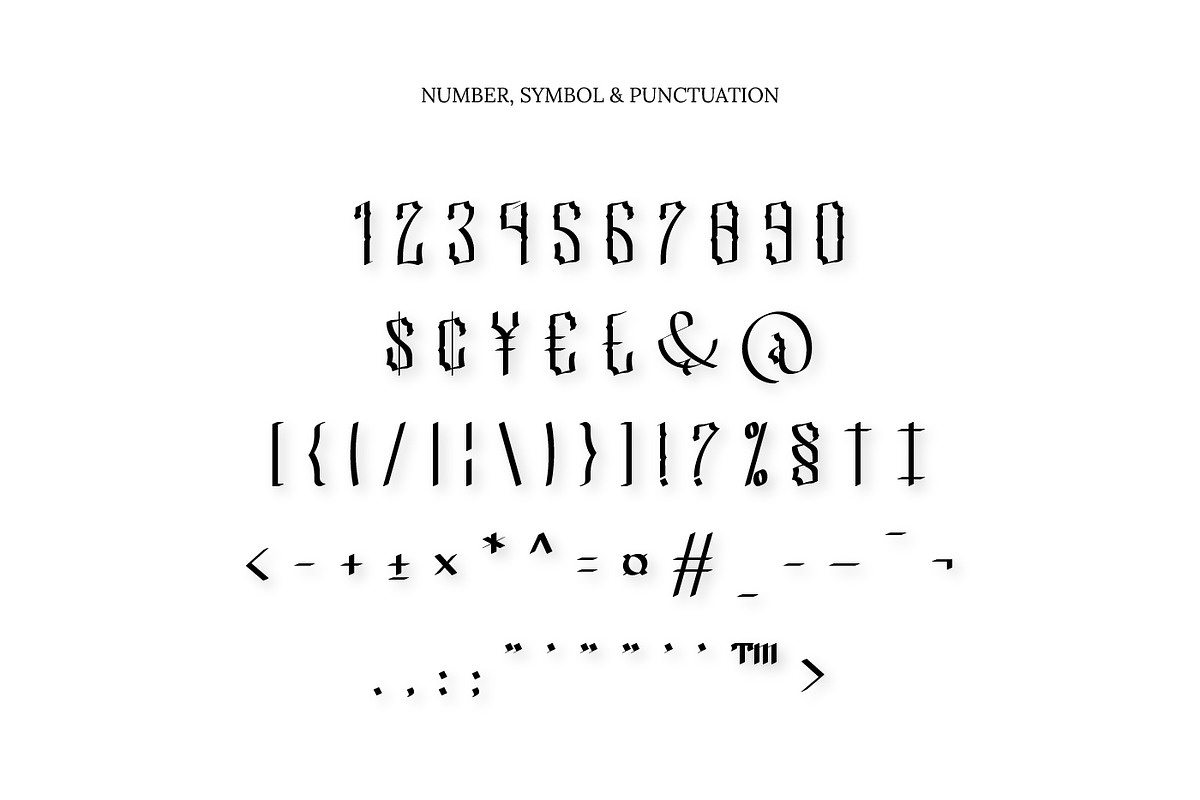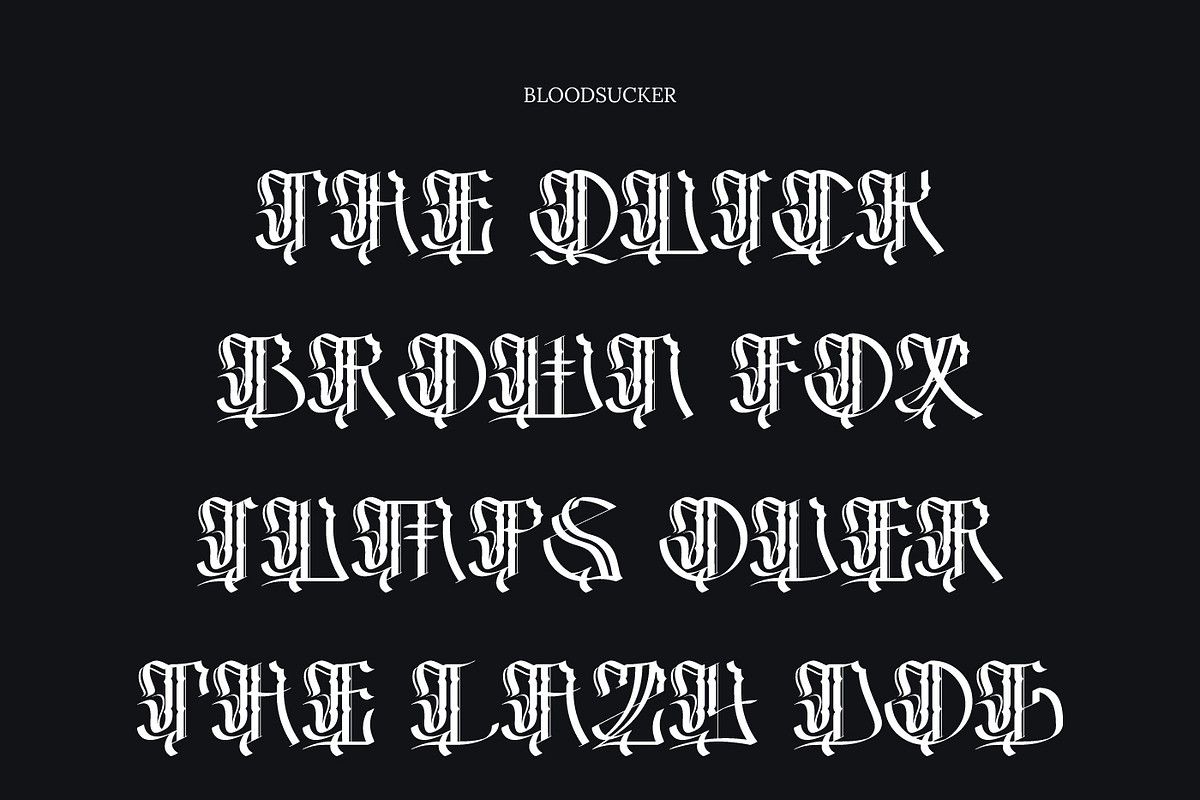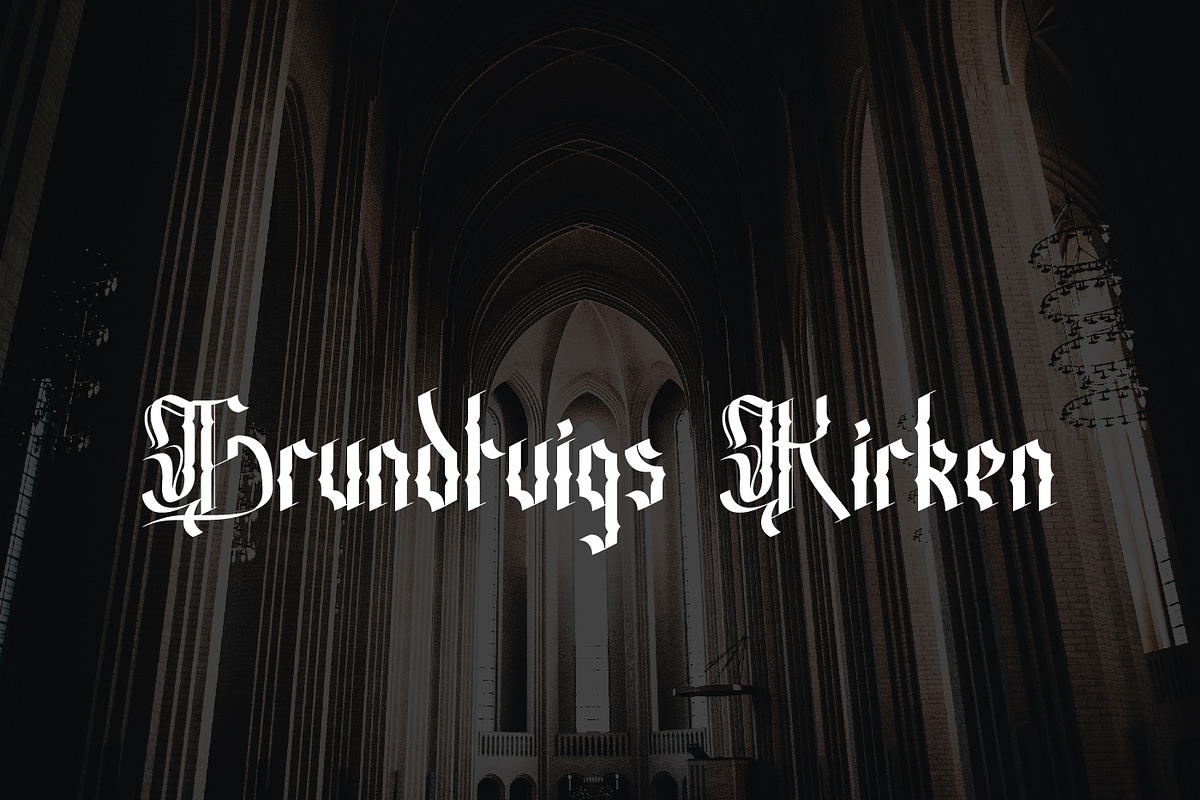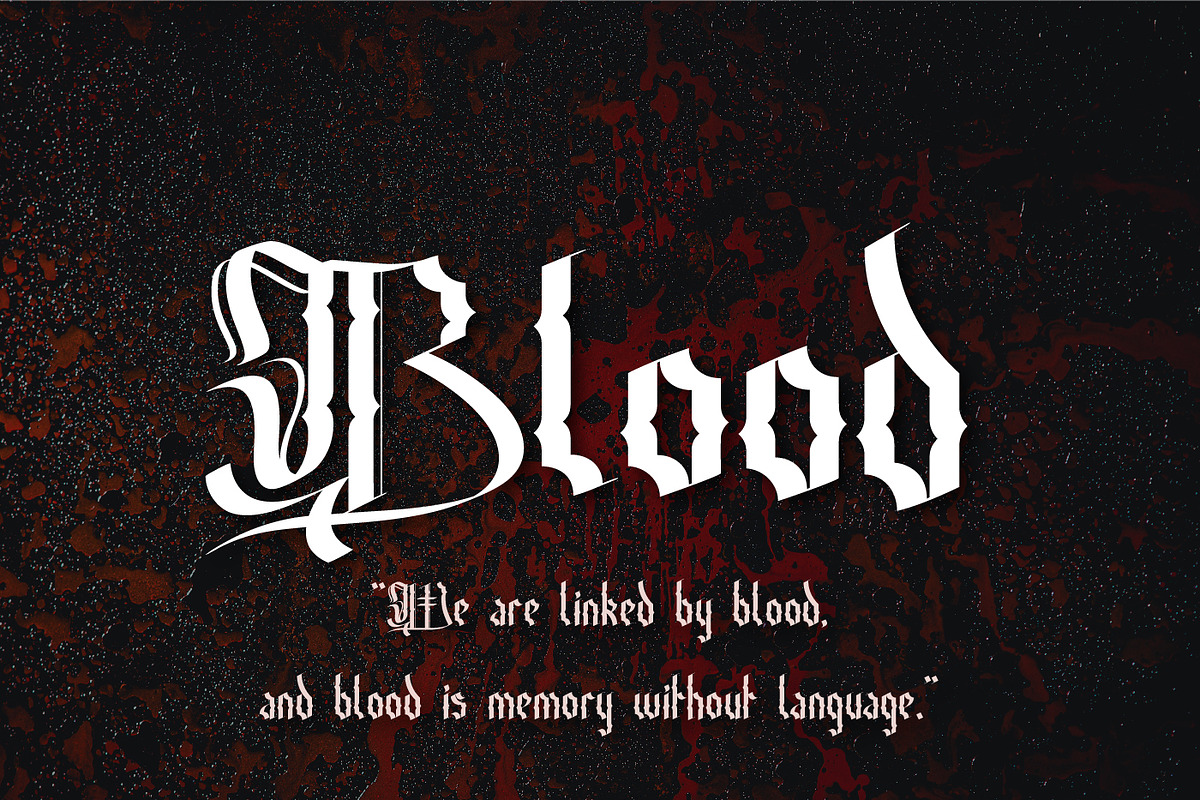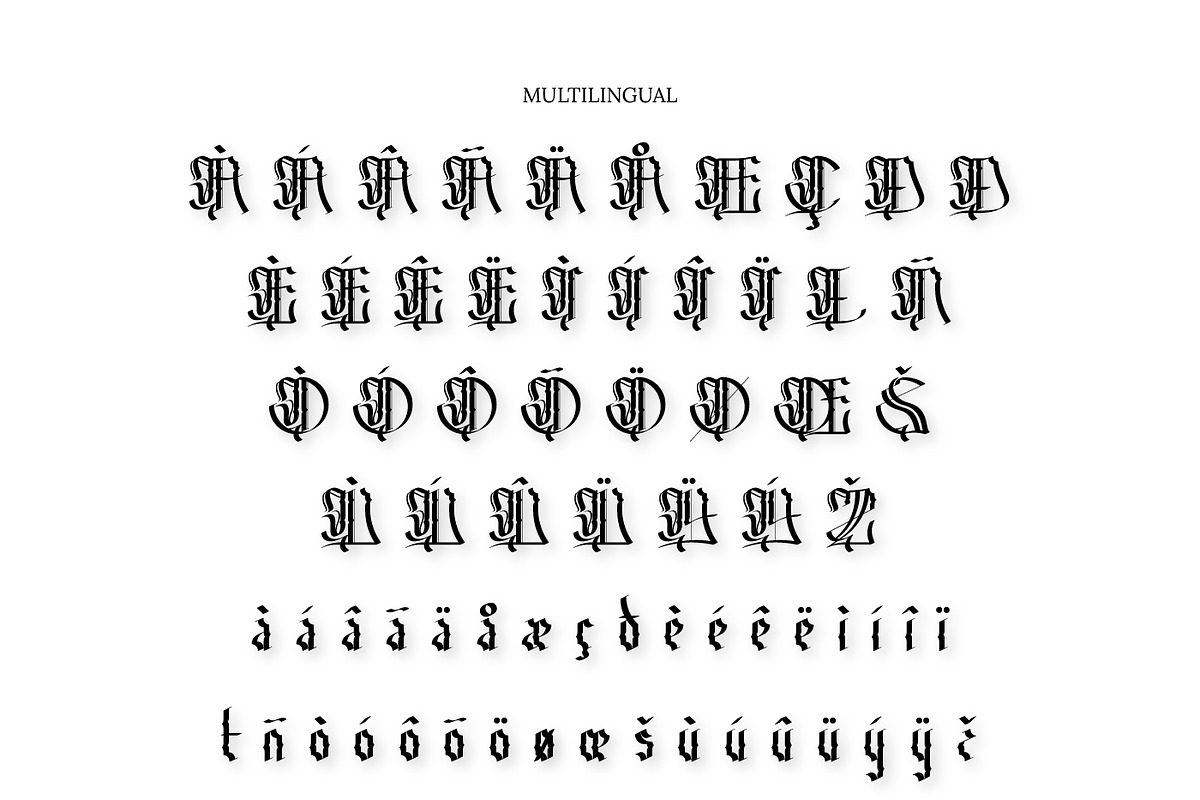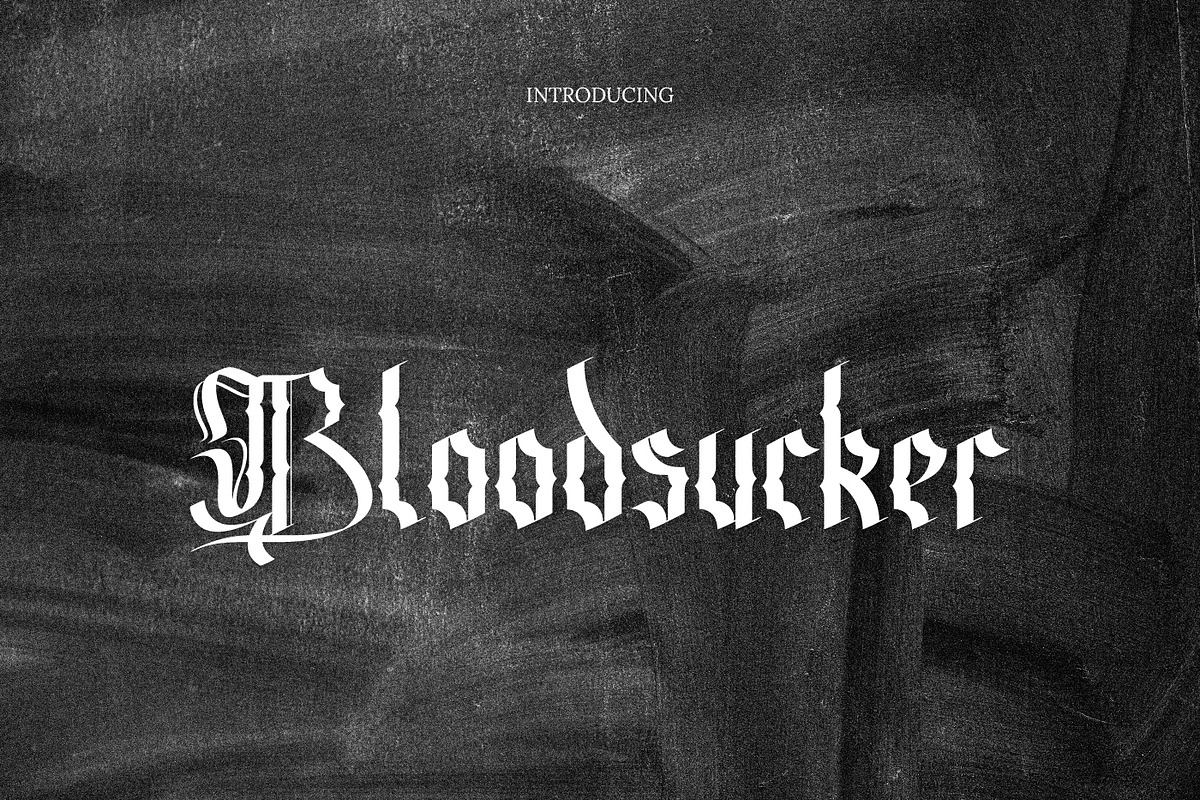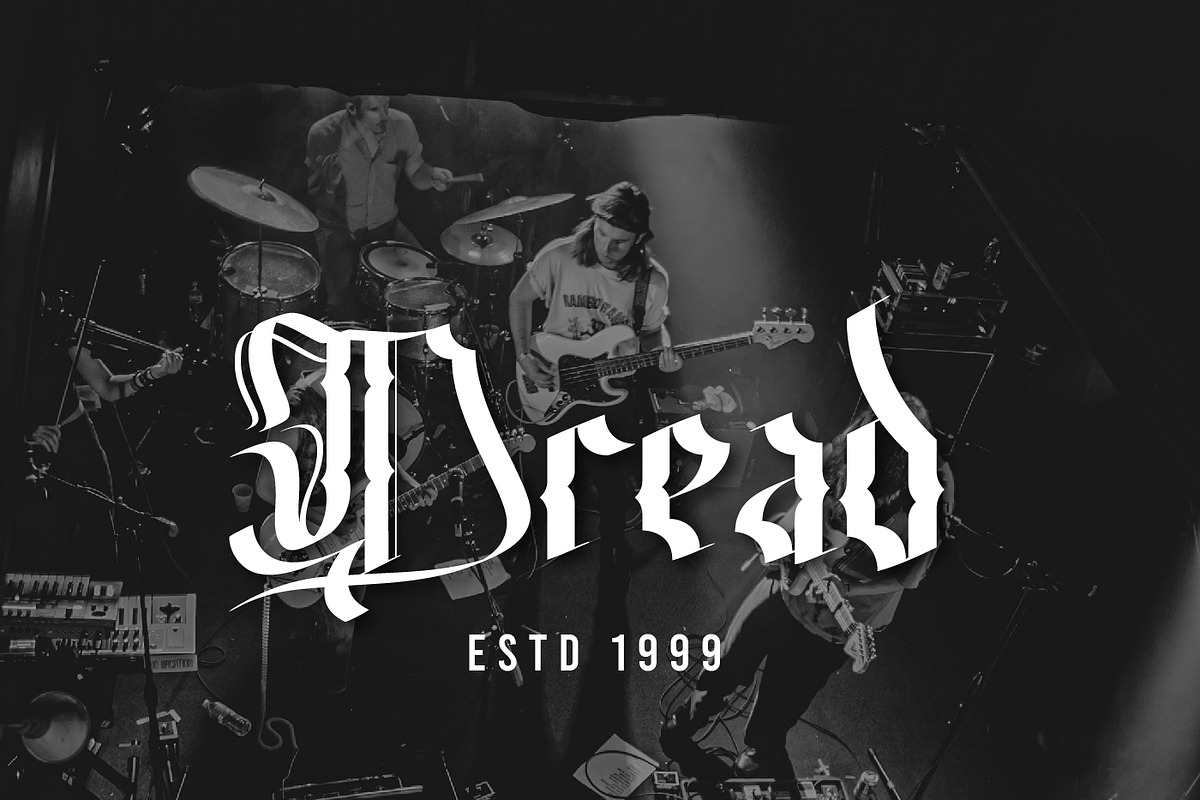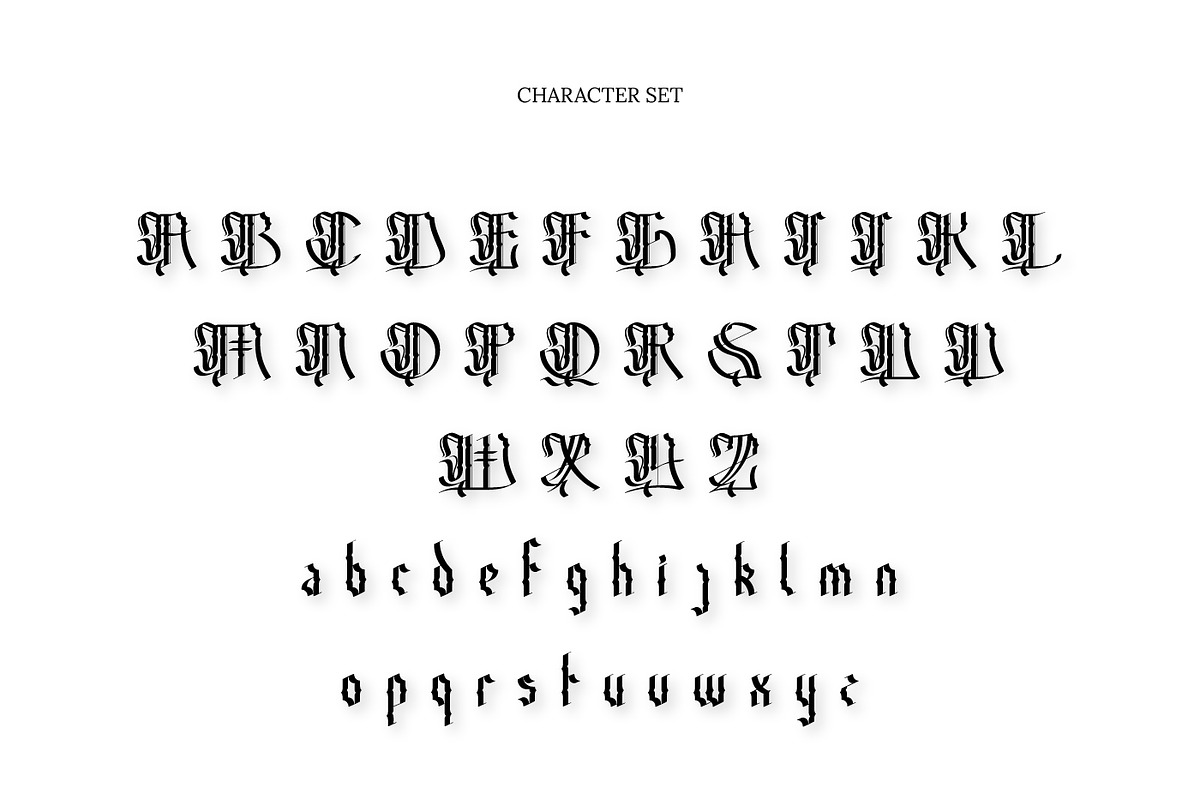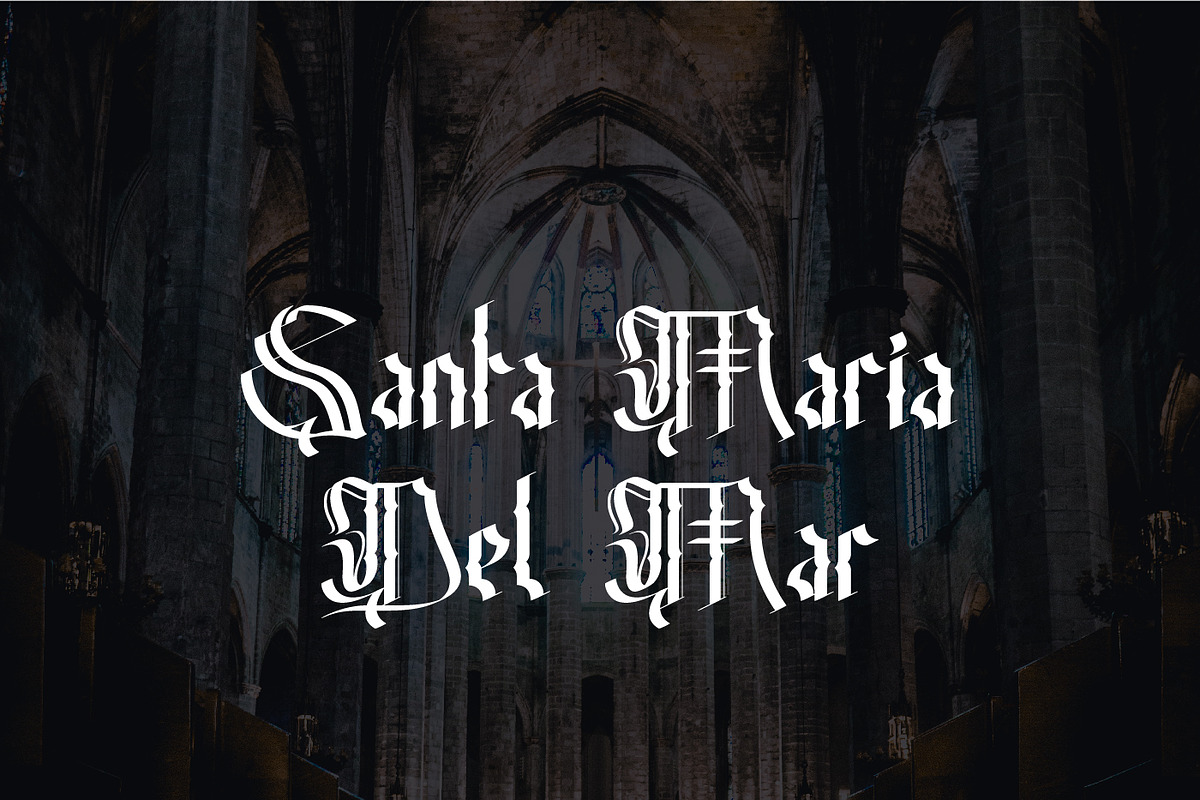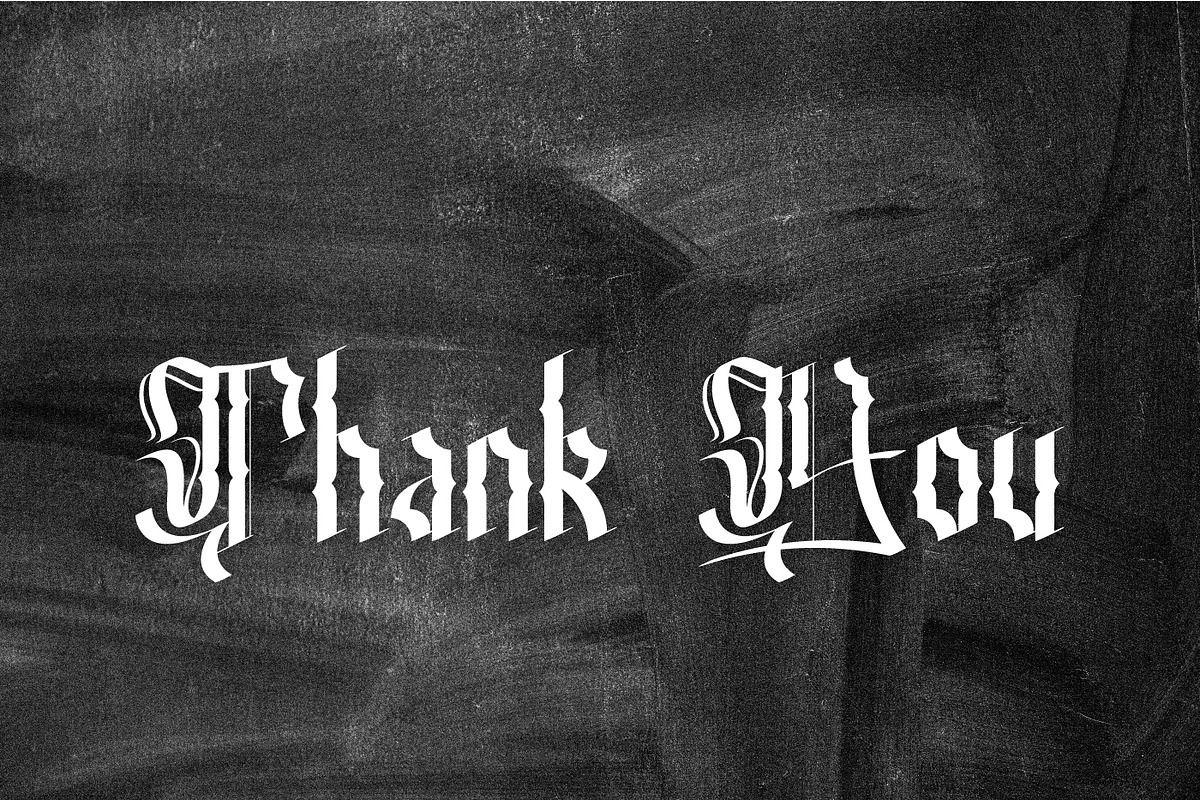
Bloodsucker Modern Blackletter
Bloodsucker is the one of modern Blackletter Typeface, it has unique line creature which didn’t had on another font. Thick, curvy, and sharp characteristic is depicted "Bloodsucker" itself which has tough, eerie, with modern and stylish. Because "Bloodsucker" has the characteristics above, it is appropriate for lettering, logo, poster, book cover. "Bloodsucker" will make your design look more powerful and artistic.